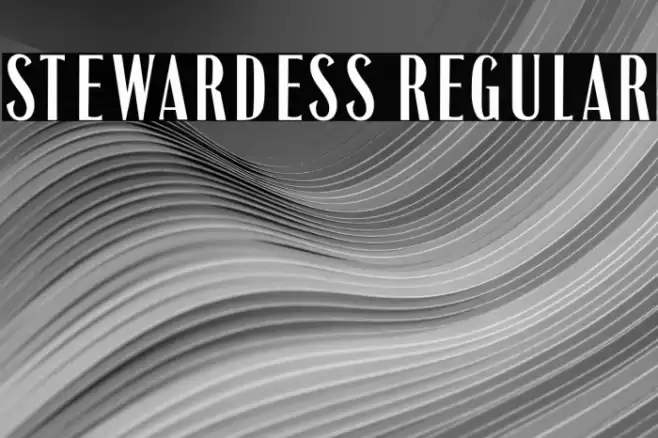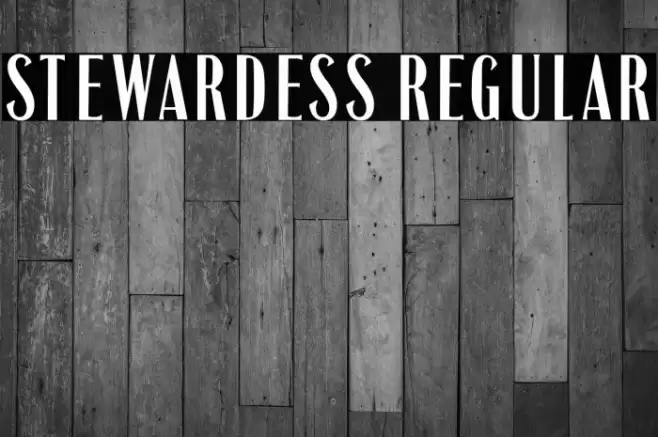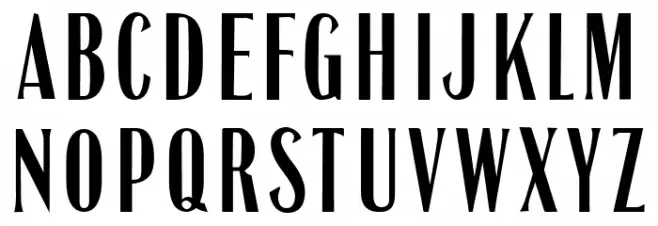
Stewardess Regular Font
Stewardess Regular Description
This font features a tall, elegant design with a slight vintage flair. The characters are narrow and elongated, giving a sophisticated and stylish appearance. The strokes are consistent, with a moderate contrast between thick and thin lines, adding a touch of refinement. The serifs are subtle, enhancing readability while maintaining a decorative edge. This font is ideal for projects that require a classic yet modern aesthetic, suitable for both digital and print media. Its unique style makes it perfect for branding, editorial design, and advertising, where a touch of elegance is desired.
A tall, elegant font with moderate contrast and subtle serifs, perfect for classic yet modern designs from Uncategorized fonts.
- Proposed Projects: Ideal for branding, editorial design, advertising, and any project requiring a sophisticated touch.
- Overall Style: Vintage
- Use Case: Headlines, Logos, Editorial design